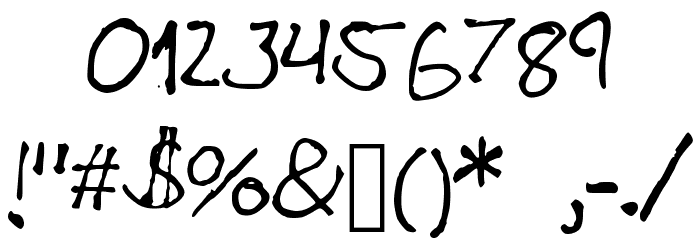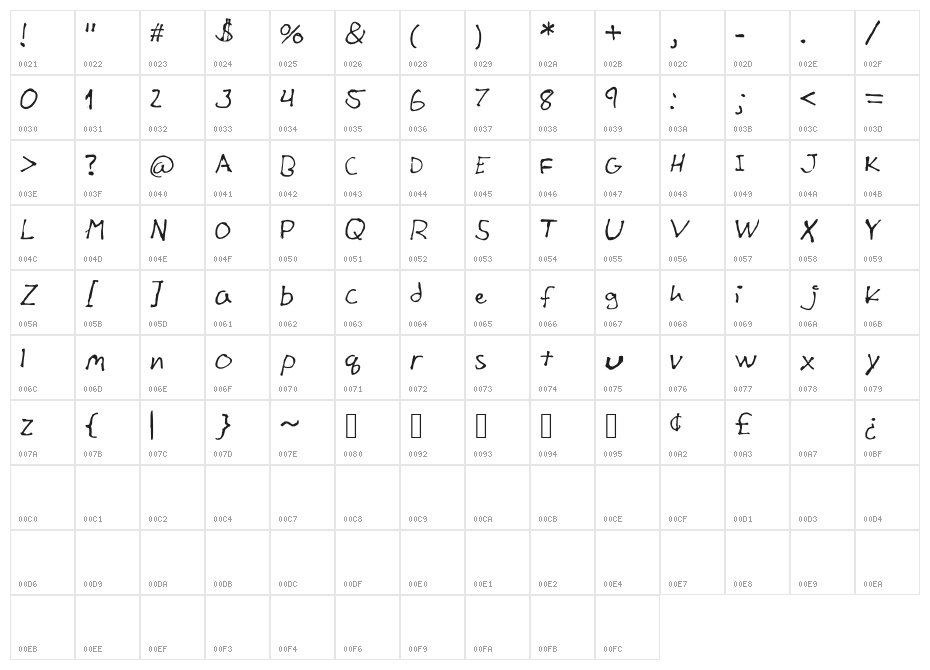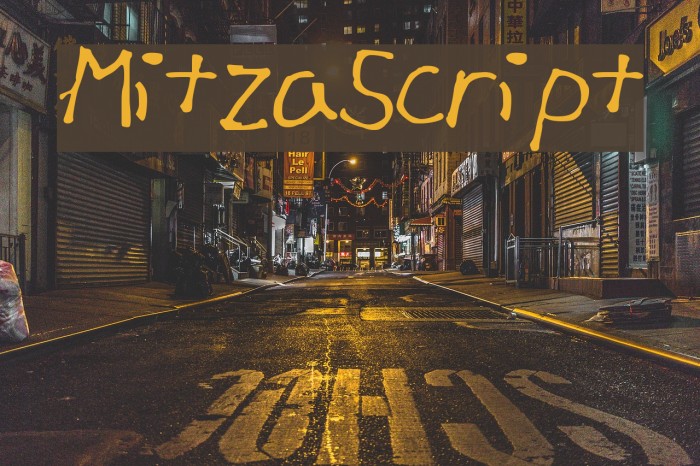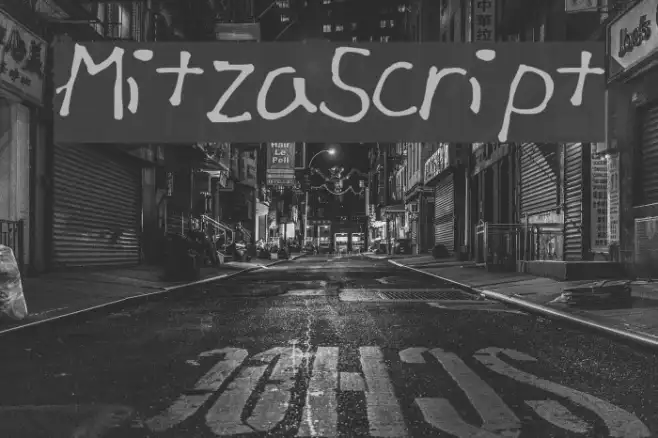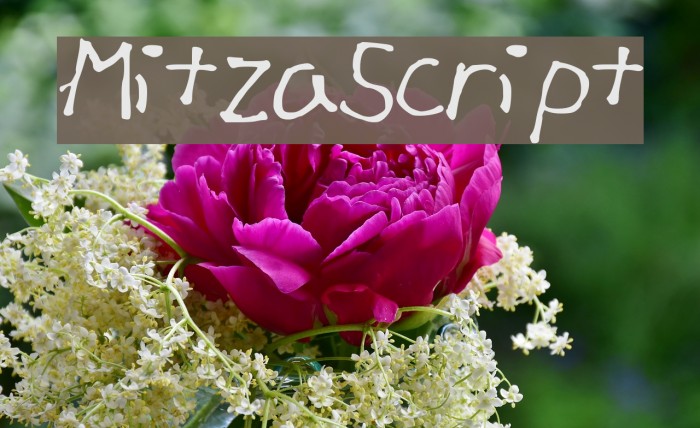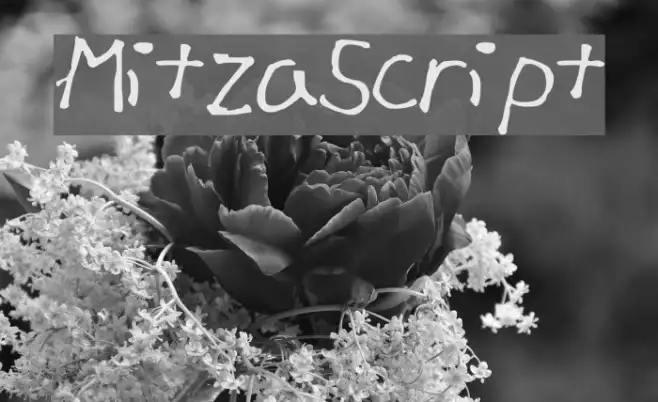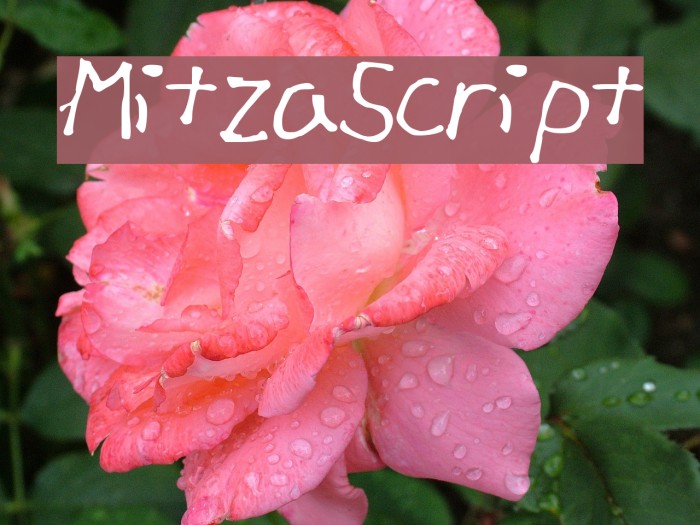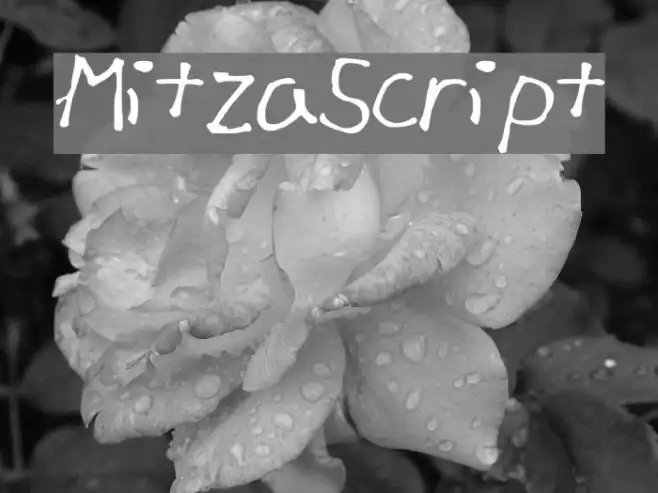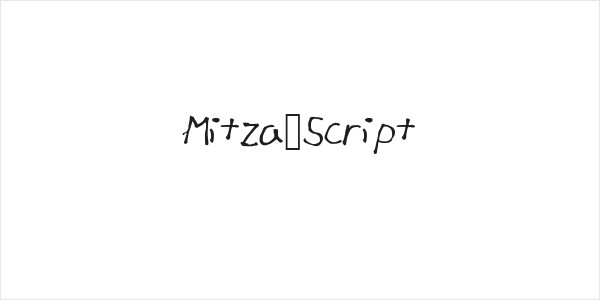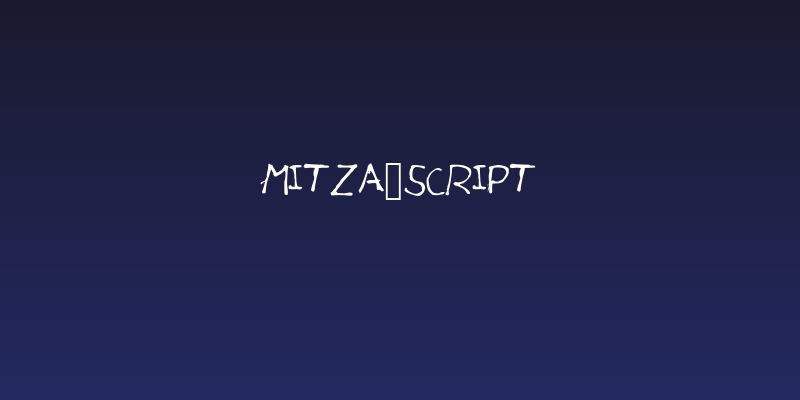
Mitza_Script Font
Mitza_Script Description
This font exudes a casual, handwritten style that mimics the fluidity and spontaneity of natural handwriting. The characters are slightly irregular, giving it an authentic and personal touch. The strokes are uneven, with varying thickness that adds to its charm and uniqueness. This font is perfect for projects that require a personal, informal, or artistic feel. It captures the essence of a relaxed, creative expression, making it ideal for invitations, greeting cards, or any design that benefits from a human touch. The overall appearance is friendly and approachable, with a playful yet sophisticated vibe.
| Overall Style | Casual, Artistic |
| Use Case | Invitations, Greeting cards, Personal branding |
| Proposed Projects | Ideal for invitations, greeting cards, personal branding, and artistic projects. |